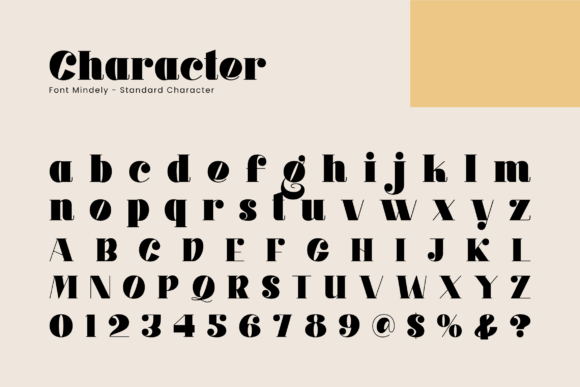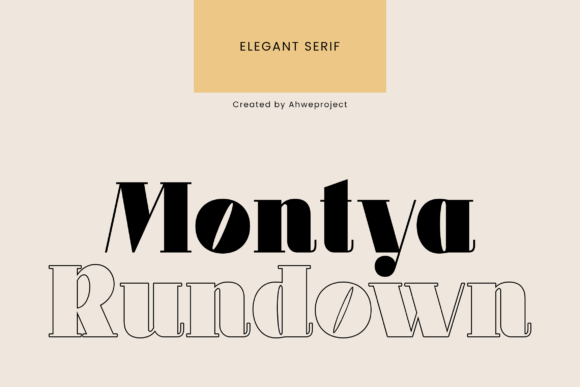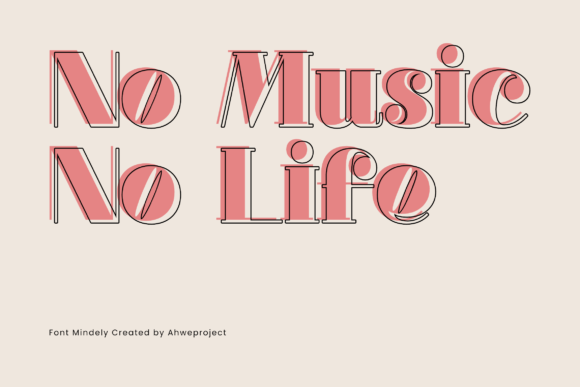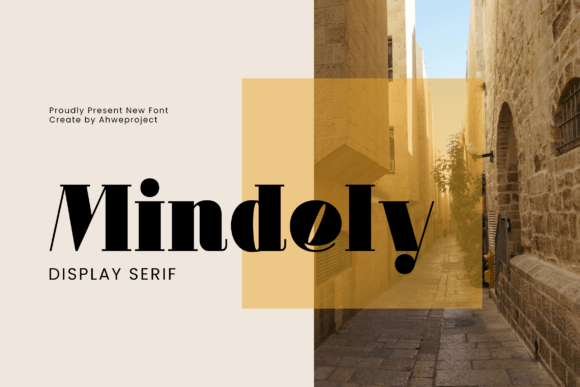
Introduction to Mindely Font
Mindely is an elegant serif font family with a display modern style.
👤 Author ahweproject
It is a display font with moderate contrast that is perfect for branding projects, logo, wedding designs, social media posts, advertisements, product packaging, product designs, label, photography, watermark, invitation, stationery, and any projects, it makes with a high level of legibility .
Key Features of Mindely Font
Why Choose Mindely Font?
Mindely Font offers exceptional quality and versatility, making it a valuable addition to your design toolkit. Whether you’re creating for personal projects or commercial use, Mindely Font delivers professional results.